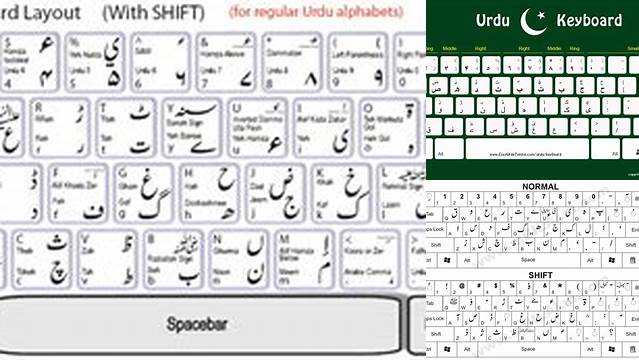
1. Understanding Urdu Fonts and Keyboards
Before we jump into the download process, let's quickly understand what Urdu fonts and keyboards are all about. Think of fonts as the style of writing – the way the letters look. An Urdu font is simply a specific design for the Urdu alphabet. Keyboards, on the other hand, are the layout that maps Urdu characters to your physical keys. So, you need both a font and a keyboard layout to type properly in Urdu. Understanding the core concepts ensures a smooth Urdu keyboard experience for everyone, whether you're composing emails or working on documents.
What are Urdu Fonts?
Urdu fonts are digital typefaces that display the Urdu script. Just like English has Times New Roman and Arial, Urdu has various fonts like Nafees Nastaleeq and Alvi Nastaleeq. Each font has its unique style and readability. Choosing the right Urdu font depends on your personal preference and the context of your writing. A well-designed font enhances the visual appeal and makes the text easier to read. There's a wide range of Urdu fonts available, from traditional styles to modern designs, catering to diverse needs and preferences. When selecting a font, consider factors such as clarity, aesthetics, and compatibility with your devices and software. You want something that not only looks good but also functions seamlessly across different platforms.
What are Urdu Keyboards?
An Urdu keyboard is a layout that maps Urdu characters to the keys on your physical keyboard. Since Urdu has more characters than English, the keyboard layout is different. There are several popular layouts, including Phonetic and Urdu Traditional. A Phonetic Urdu keyboard maps Urdu sounds to similar-sounding English letters, making it easier for beginners. The Urdu Traditional layout follows a more standardized arrangement of characters, commonly used by experienced typists. The choice of layout depends on your familiarity with the Urdu script and your typing style. Many operating systems and devices offer built-in Urdu keyboard options, allowing you to switch between languages easily. You can also download and install third-party keyboard applications for additional features and customization. Mastering the Urdu keyboard layout is essential for efficient and accurate typing in Urdu.
2. Why You Need an Urdu Keyboard
So, why bother with an Urdu keyboard in the first place? Well, if you want to write emails, documents, or even social media posts in Urdu, you absolutely need one! Trying to type Urdu with an English keyboard is like trying to paint with a toothbrush – it's just not going to work very well. Having the right keyboard setup makes the whole process smooth and efficient. Plus, it allows you to express yourself authentically and connect with others in your native language. An Urdu keyboard is more than just a tool; it's a bridge to your culture and heritage.
Typing in Your Native Language
One of the biggest advantages of using an Urdu keyboard is the ability to type in your native language. This is crucial for clear and effective communication, especially when expressing complex ideas or emotions. Typing in Urdu allows you to preserve the nuances and subtleties of the language, ensuring that your message is conveyed accurately. It also makes the writing process more natural and intuitive, as you can directly translate your thoughts into text without struggling with an unfamiliar script. Whether you're writing personal messages or professional documents, using an Urdu keyboard ensures that your voice is heard in its truest form.
Connecting with Urdu Speakers
Using an Urdu keyboard also helps you connect with other Urdu speakers online. Whether it's through social media, email, or online forums, typing in Urdu fosters a sense of community and belonging. It allows you to participate in conversations, share your thoughts, and build relationships with others who share your language and culture. Typing in Urdu also demonstrates respect for the language and its speakers, creating a welcoming and inclusive environment. In today's interconnected world, having the ability to communicate in multiple languages is a valuable asset, and using an Urdu keyboard is a simple yet powerful way to stay connected with your heritage.
Preserving Urdu Language and Culture
Perhaps the most significant reason to use an Urdu keyboard is to help preserve the Urdu language and culture. Language is a vital part of our identity, and by using Urdu in digital spaces, we ensure its continued relevance and vitality. Typing in Urdu helps promote the language among younger generations, encouraging them to learn and use it in their daily lives. It also supports the creation of Urdu content online, enriching the digital landscape with diverse perspectives and voices. By making Urdu visible and accessible in the digital world, we contribute to its preservation for future generations. Using an Urdu keyboard is not just a practical tool; it's an act of cultural preservation and pride.
3. Finding Free Urdu Fonts
Okay, so where do you find these Urdu fonts? The good news is there are tons of free options available online! Websites like UrduWeb, Font Face, and even Google Fonts offer a wide range of Urdu fonts that you can download without spending a penny. Just make sure you're downloading from a reputable source to avoid any dodgy files. The beauty of free Urdu fonts is that they make it accessible for everyone to express themselves in the language they love. Exploring different font styles can also add personality and flair to your writing, making it even more engaging and visually appealing.
Popular Websites for Urdu Font Downloads
Several websites offer a vast collection of Urdu fonts for free download. These platforms often feature a variety of styles, from traditional calligraphy-inspired fonts to modern and minimalist designs. Some of the most popular websites include UrduWeb, known for its extensive library of Urdu resources; Font Face, which offers a wide range of fonts for various languages, including Urdu; and Google Fonts, a reliable source for high-quality, open-source fonts. When browsing these websites, you can filter fonts by style, popularity, and other criteria to find the perfect match for your needs. It's always a good idea to preview the font before downloading to ensure it meets your expectations. Additionally, check the font's license to understand how you can use it, especially if you plan to use it for commercial purposes. With so many free Urdu fonts available online, you're sure to find one that suits your style and enhances your writing.
So there you have it! Downloading and installing Urdu fonts and keyboards is totally doable, and with this guide, you should be typing in Urdu in no time. Remember to download fonts from reputable sources, choose a keyboard layout that suits you, and practice regularly to improve your typing speed. Happy typing, guys! This comprehensive guide should help you navigate the world of Urdu fonts and keyboards with confidence. By following these steps and tips, you can overcome any challenges and enjoy seamless Urdu typing on your devices. Whether you're connecting with friends and family, creating content in Urdu, or simply expressing yourself in your native language, having the right tools and knowledge makes all the difference. Embrace the beauty and richness of the Urdu language, and let your words flow freely!